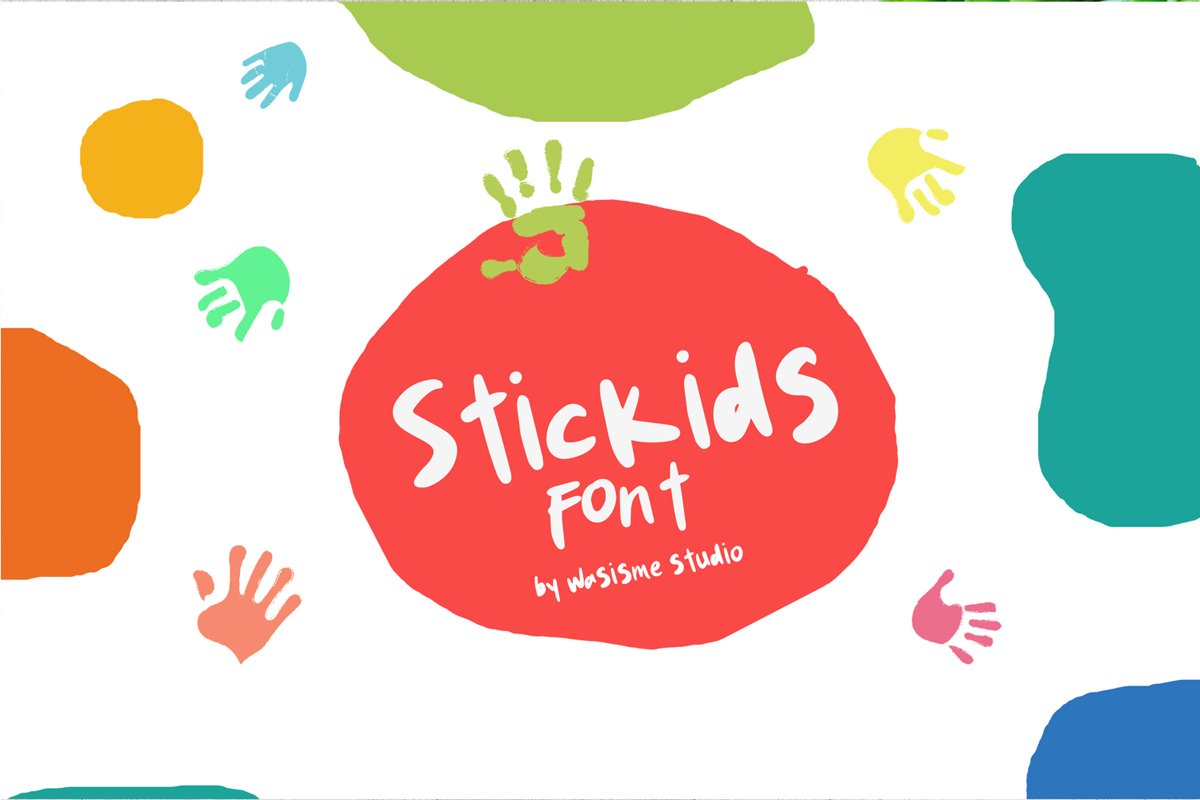
Stickids
Stickids embodies fun, quirkiness and authenticity. This enchanting display font will turn any creative idea into a true standout. Get creative with its childlike playfulness, and use it to brighten up any kids and school project!